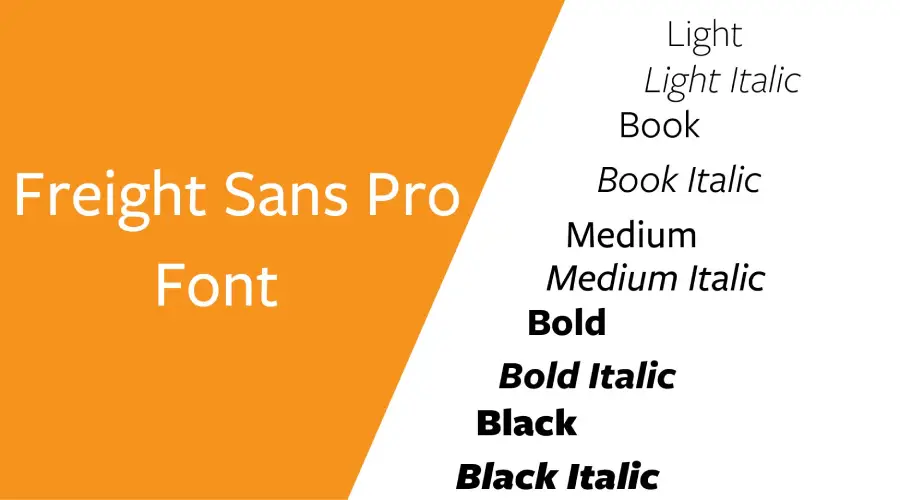
Freight Sans Pro font is a sans-serif typeface that combines simplicity and sophistication. It is part of the Freight Collection, a family of fonts that includes serif, sans, display, and micro versions. Freight Sans Pro was designed by Joshua Darden, a renowned type designer who has worked for clients such as The New York Times, Harper’s Bazaar, and Martha Stewart Living.
It is a humanist sans-serif with a warm and friendly appearance. It has a large x-height and open apertures which makes it an excellent sans for setting body copy. Freight Sans Pro is available in five weights—light, book, medium, bold, and black—each with matching italics and small caps styles.
Freight Sans Pro is a versatile font that can be used for various purposes, such as headlines, body text, captions, labels, and more. It has a large X-height, generous spacing, and clear shapes that make it easy to read and elegant to look at. Freight Sans Pro also supports many languages, including Latin, Greek, Cyrillic, and Vietnamese. You can pair this font with others to make your design stand out and get your audience’s attention.
Some fonts that go well with Freight Sans Pro are:
If you’re in love with the Freight Sans Pro font, here are some similar fonts that might catch your eye:
Freight Sans Pro font is a beautiful sans-serif font that can make your design stand out. It has a simple and sophisticated feel that can evoke positive emotions. You can use it for various projects that need a clean and classy touch.